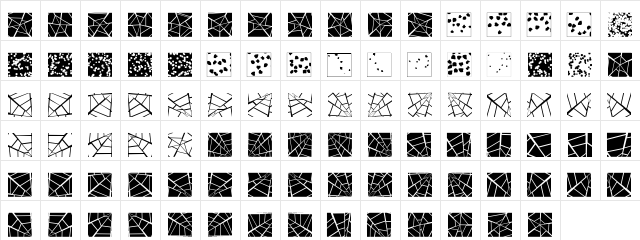
XMoreTexture Regular
Design Context for XMoreTexture Typeface
XMoreTexture embraces imperfection — its rough, textured character adds raw authenticity to designs that want to feel lived-in and unconventional.
A strong fit for alternative music projects, graffiti-adjacent design, and anything that deliberately resists polish.
Pro Tip: Use XMoreTexture at larger sizes where the texture and irregularity of each letterform can be clearly seen — it loses its character at small sizes.